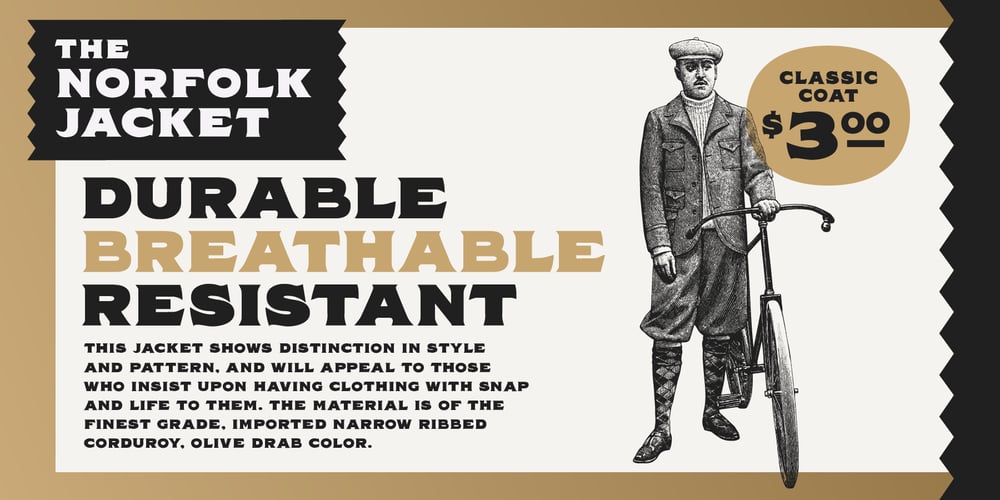
BLT Norfolk
BLT Norfolk font
BLT Norfolk Font Family was designed by Kenny Li and published by Black Lab Type. BLT Norfolk contains 3 styles and family package options. Norfolk is a vintage-inspired font based on the styles found on packaging from the early 1900’s. It evokes a genuine and timelessly crafted look from this period. Three styles are included in this family: Fill, Inline and Outline. The styles can be used together or layered to create a variety of vintage looks for any project. Norfolk works well as a header or title for branding, packaging or publications.